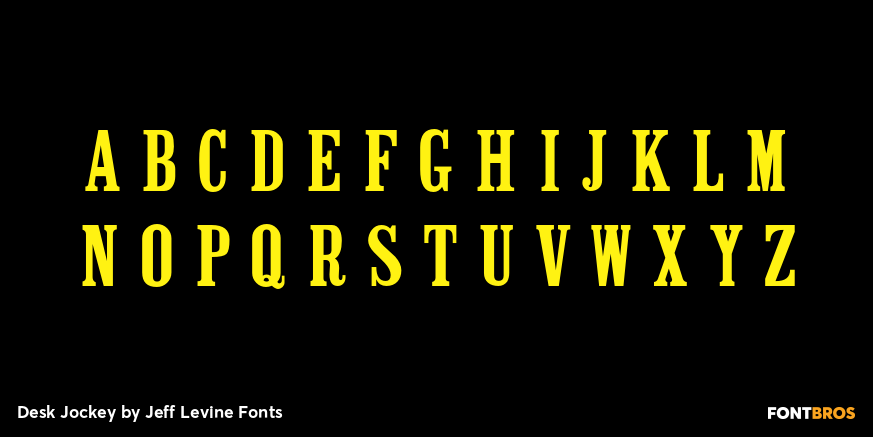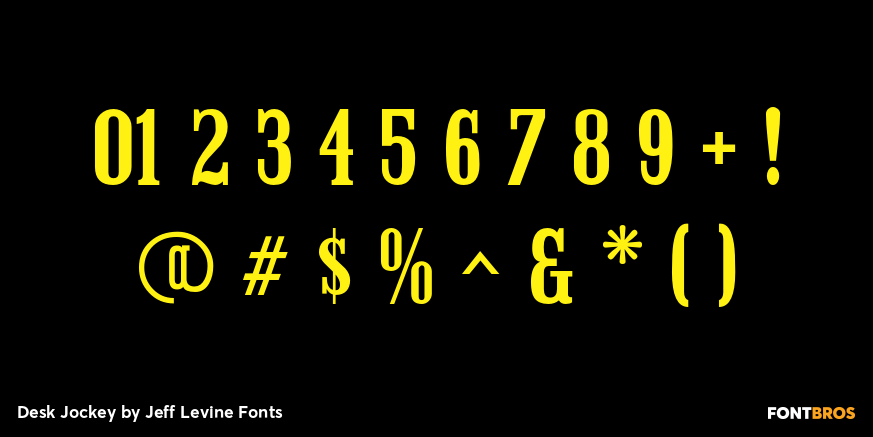
Desk Jockey
Desk Jockey JNL features the same font found in Jeff's Levine's Mailbox Letters JNL (based on self-adhesive lettering), but without the rectangles.